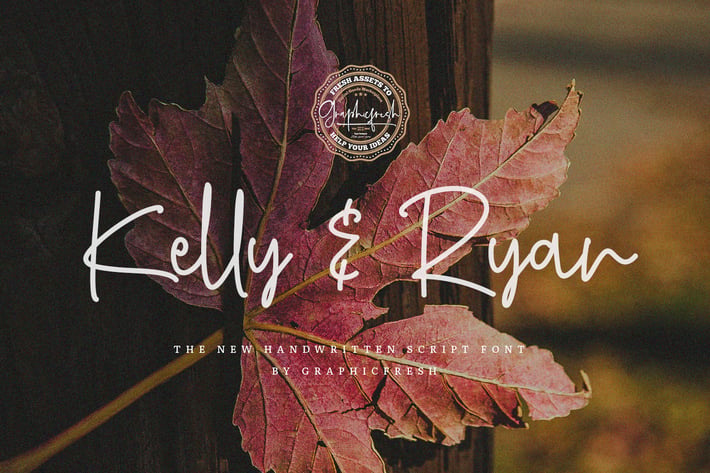
Kelly & Ryan | The Handwritten Font
Introducing Kelly & Ryan | The Handwritten Font. It comes with an elegant and feminine style which is perfect to make any design stand out! This font is perfect for branding, wedding invites, magazines, mugs, business cards, quotes, posters, and more.
Kelly & Ryan Type Features:
- Numerals & Punctuations
- Suitable for Headlines, Logotypes, Signs, Posters, Letterhead, T-Shirt and many more.